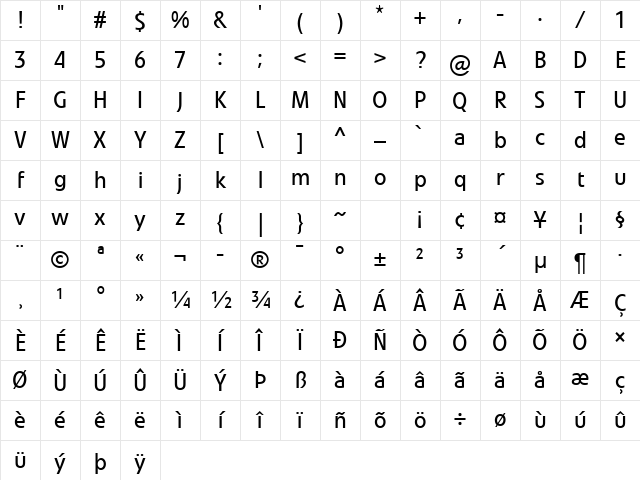
Veto Com Regular
Designer: Marco Ganz
Design Context for Veto Com
Veto Com is a composed and adaptable typeface that performs quietly and consistently across a wide range of design contexts.
Pro Tip: Use Veto Com in both headline and body roles to test its range before committing to a single application.